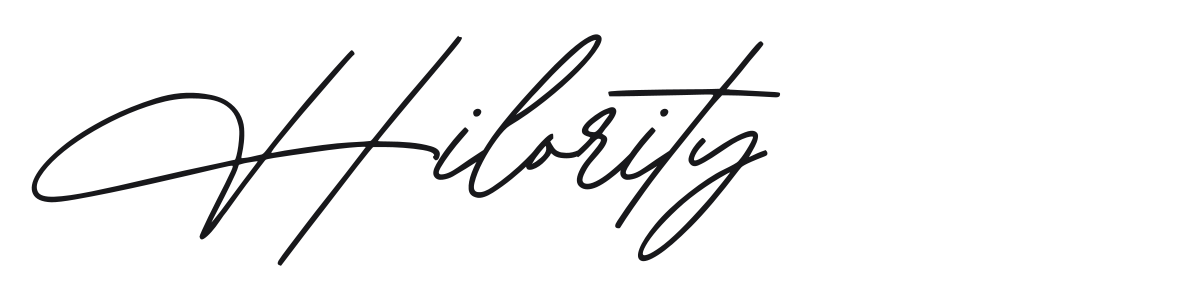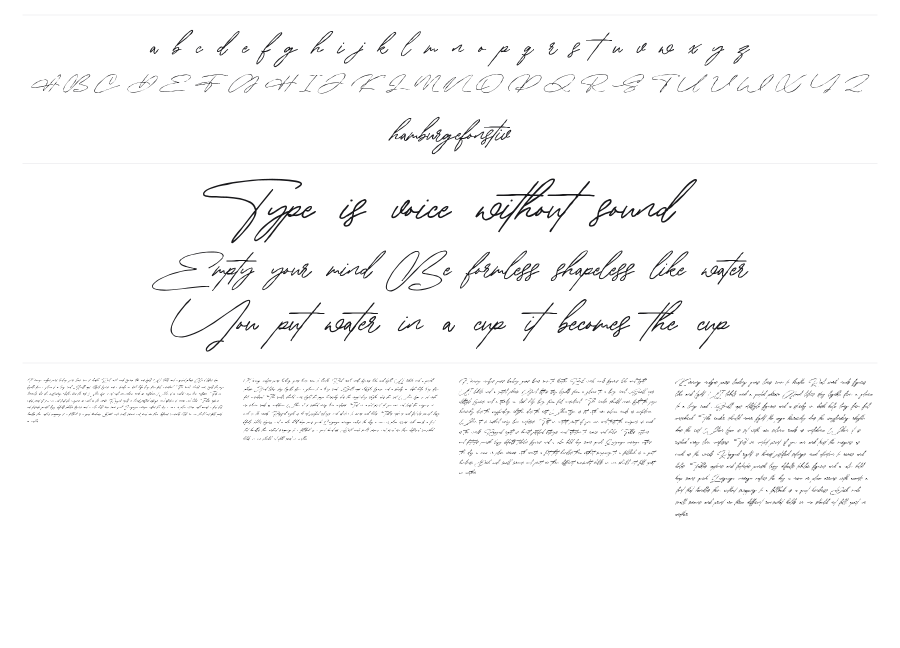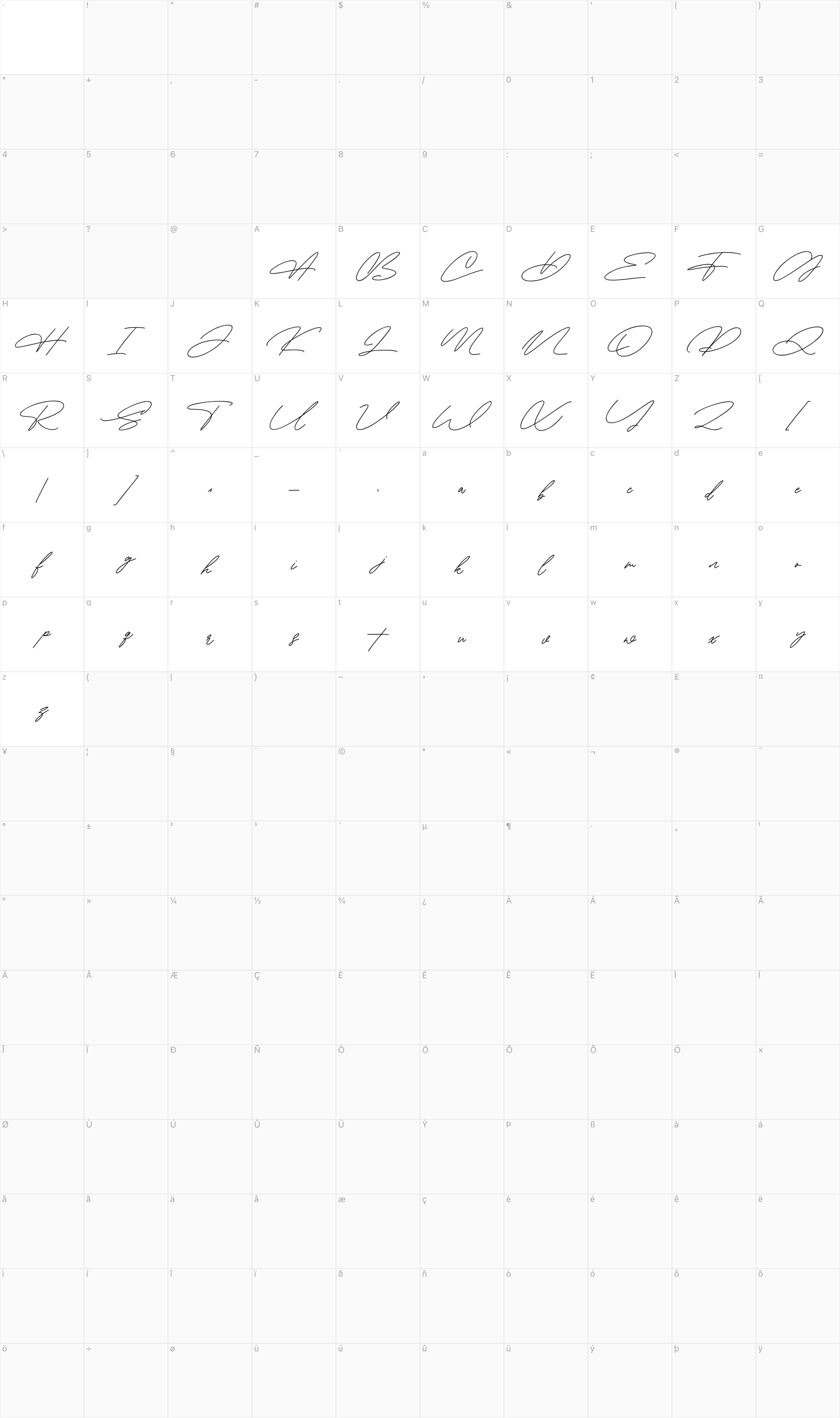
Hilority
Hilority is a casual signature script with long flowing connections and thin, relaxed strokes. It sits somewhere between a personal autograph and a polished logotype, with natural irregularities that keep it feeling genuine rather than mechanical. Strong in branding, packaging, and any context calling for a personal touch.